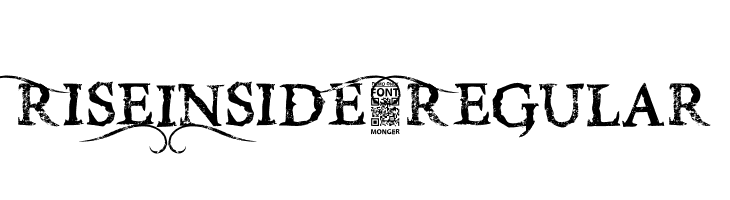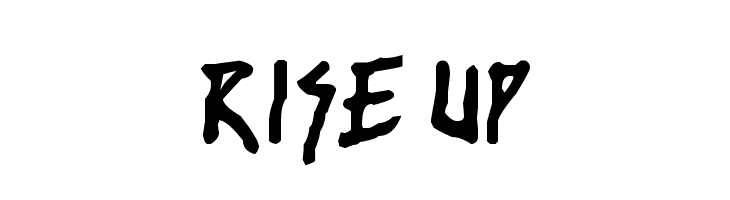
A dynamic script font with calligraphic elegance and fluid motion.
A playful, hand-drawn font with a doodle-like, energetic style.
A playful, hand-drawn font with a sketch-like, whimsical appearance.
A playful, rounded font with a bold and friendly style.
A playful, bold font with rounded, bubbly characters and consistent stroke width.
A lively and elegant script font with fluid, connected letters.
A bold, distressed font with an eroded, organic appearance.